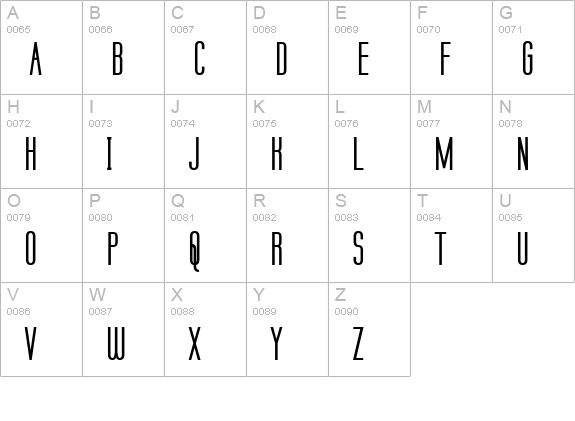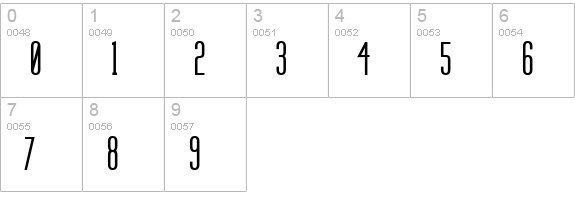
Labtop Bold is a strong, high-contrast variant in the Labtop typeface family \xE2\x80\x94 well suited to headlines, attention-grabbing titles, and strong calls-to-action.